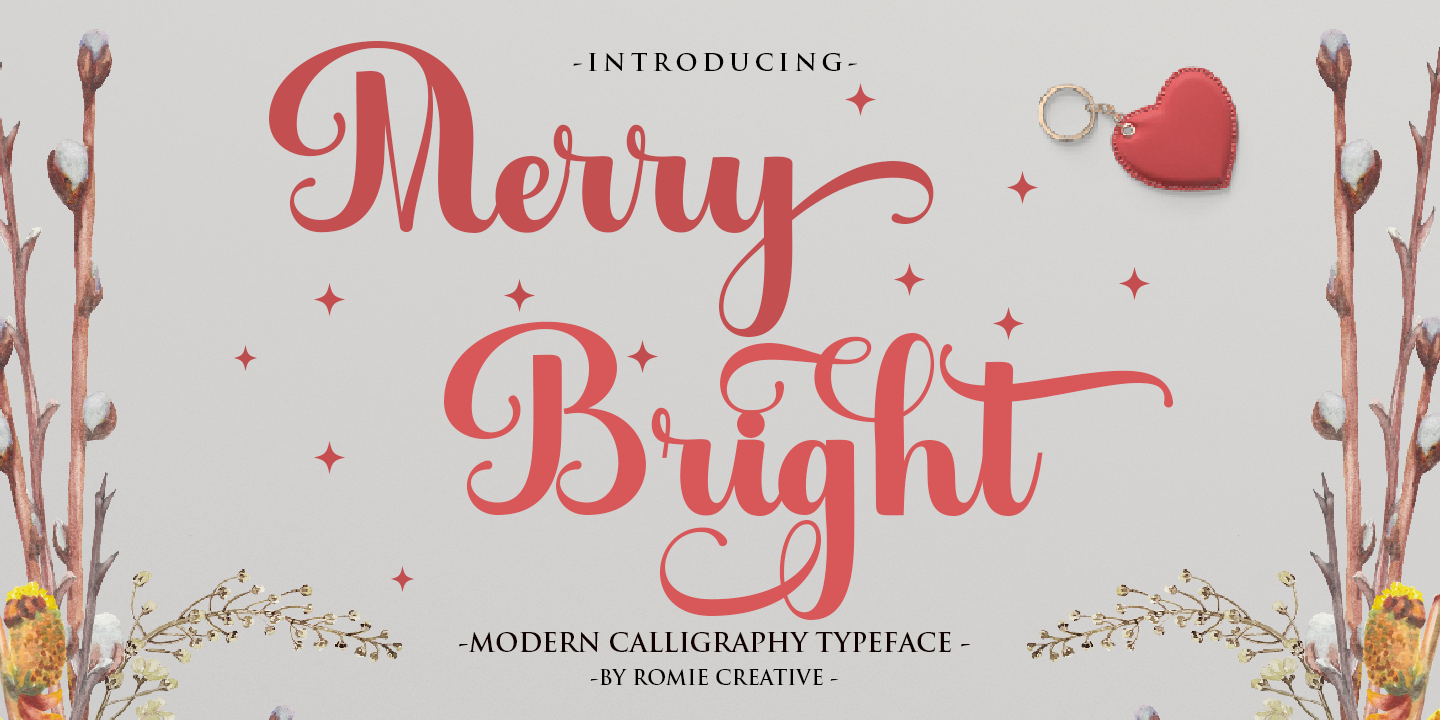
Merry Bright Font is perfect for Christmas decoration branding, holiday light display advertising, festive greeting card designs, winter celebration promotions, Christmas market signage, and joyful holiday marketing campaigns. Its luminous character makes it ideal for holiday lighting companies, Christmas event organizers, seasonal decoration retailers, festive entertainment venues, and any application requiring sparkling typography that conveys Christmas brightness, holiday cheer, and the magical illumination of seasonal celebrations and winter festivities.
Merry Bright Font is exciting because it radiates the warm glow and sparkling joy of Christmas lights through brilliantly illuminated letterforms that capture the magical brightness and festive energy central to holiday celebrations. Its glowing proportions and light-inspired details evoke the cozy warmth of twinkling Christmas lights and the uplifting spirit that bright holiday decorations bring to winter darkness, making it perfect for brands seeking to create magical Christmas experiences. The font's bright character transforms communications into expressions of holiday luminosity.
Merry Bright Font family includes brilliantly-designed weight variations typically featuring Light, Regular, Medium, and Bold options with sparkling styling that maintains Christmas authenticity. The family often incorporates light symbols, festive ornaments, and illumination elements designed for holiday applications, providing designers with comprehensive tools for creating authentic, Christmas brightness-focused typographic compositions.
When selecting Christmas illumination typography solutions, Merry Bright Font Free Download represents an exceptional choice for holiday lighting and celebration projects. This luminous typeface brings instant Christmas brightness to any design, making it invaluable for holiday lighting companies, Christmas decoration retailers, and festive event organizers celebrating seasonal illumination. Whether you're developing Christmas lighting display branding, creating holiday decoration marketing materials, or designing festive celebration campaigns, Merry Bright Font provides the sparkling brightness and Christmas authenticity essential for capturing holiday magic in today's Christmas lighting marketplace.